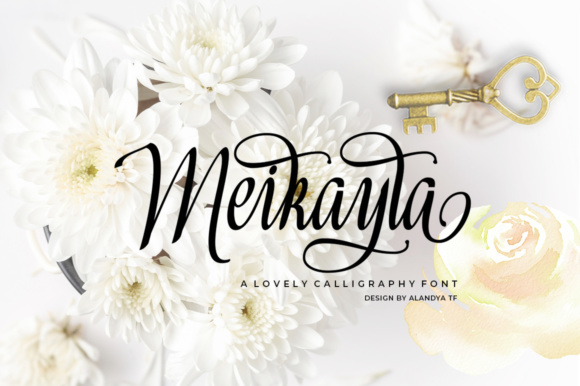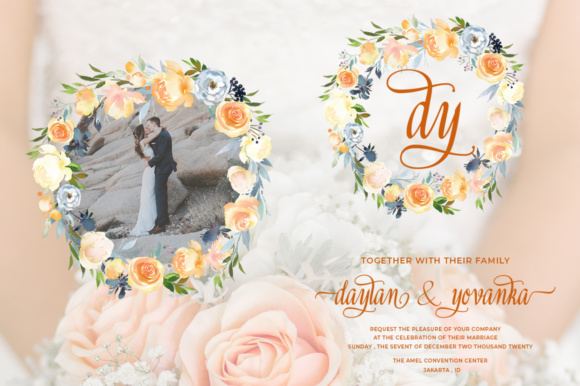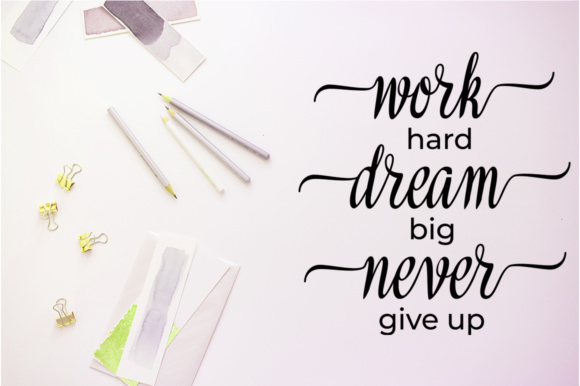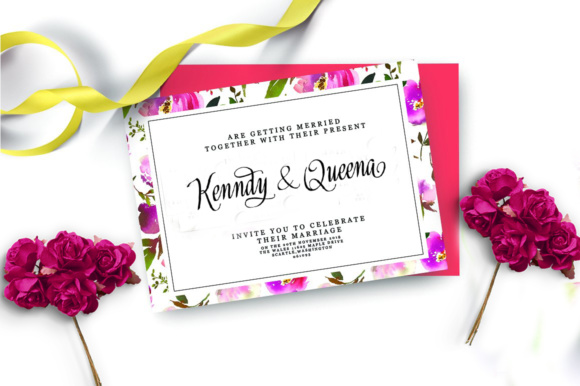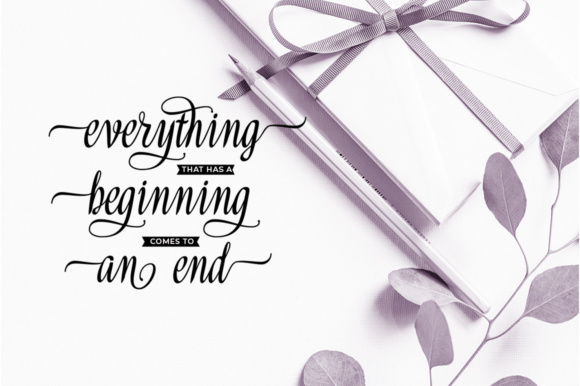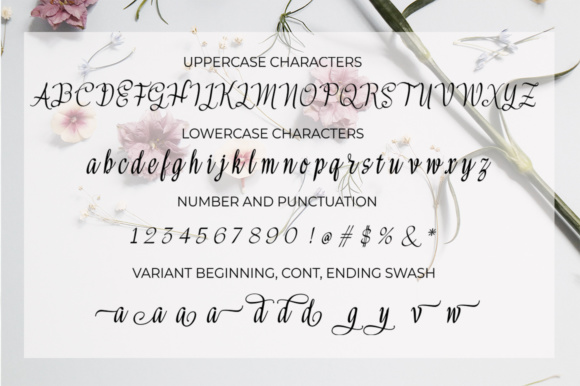
Meikayla Script Font
About Meikayla Script Font
Meikayla Script is a classic decorative font with a modern twist. Meikayla is a handwritten font meant for vintage logos, fashion labels, custom cards headers, badges, food packaging designs, as there are a lot of fancy letter connections. Meikayla offers a decent amount of stylistic alternatives for many letters.